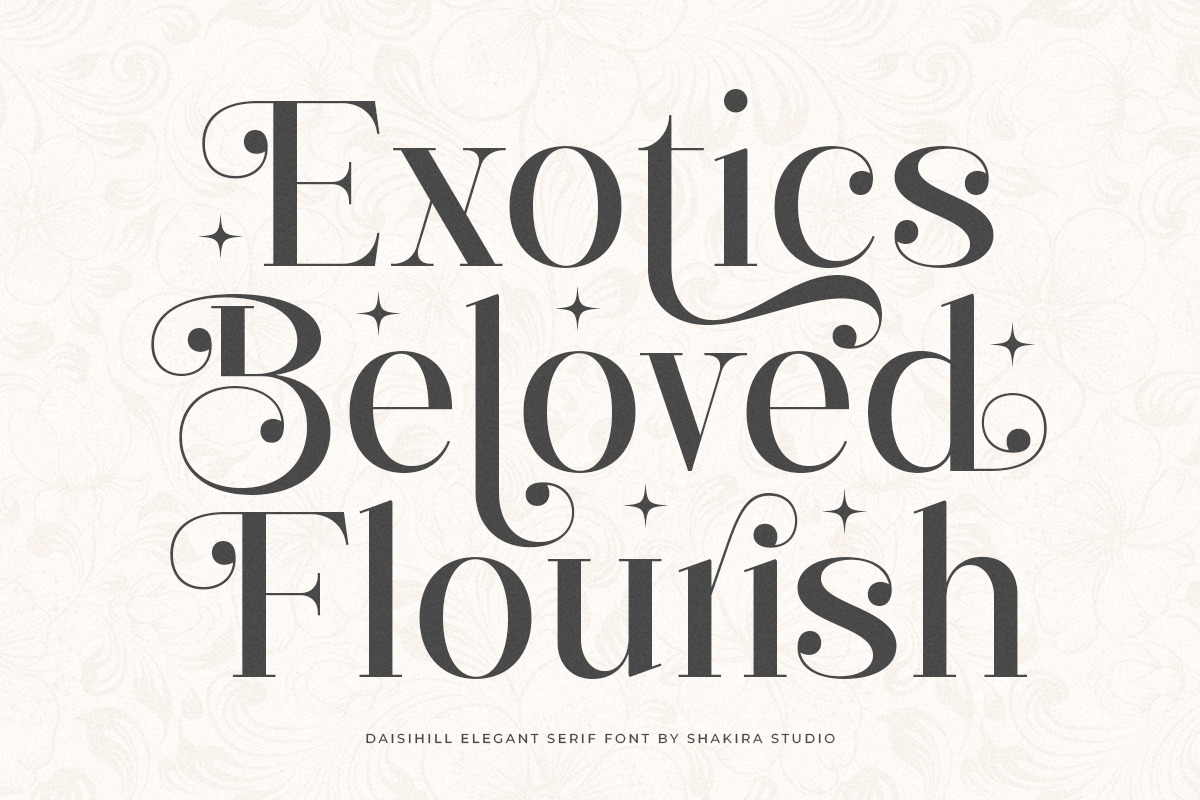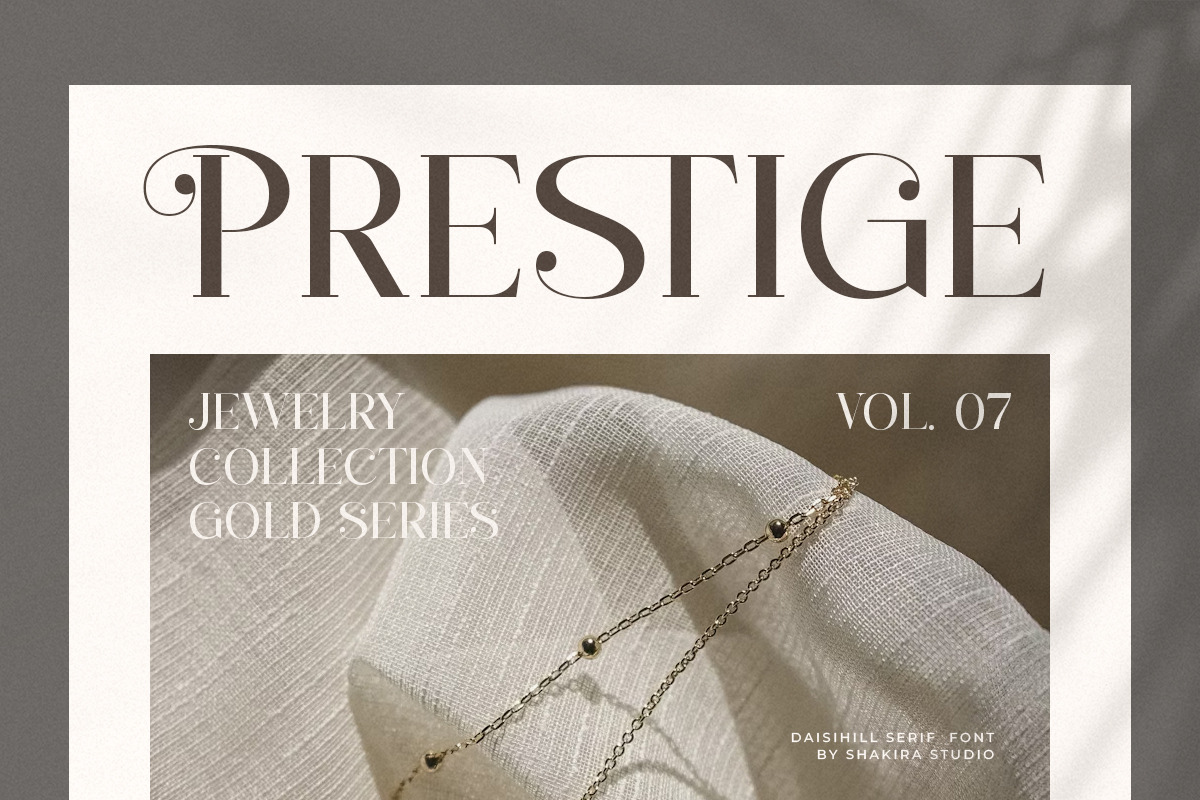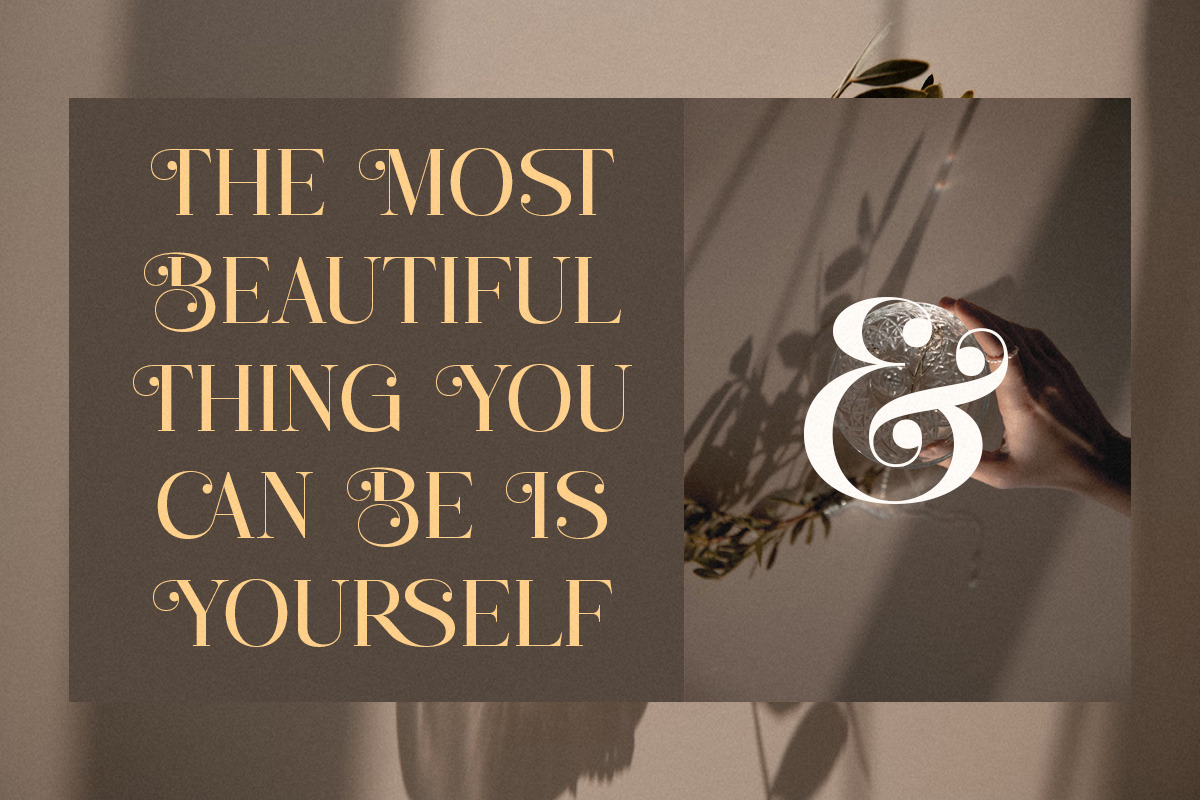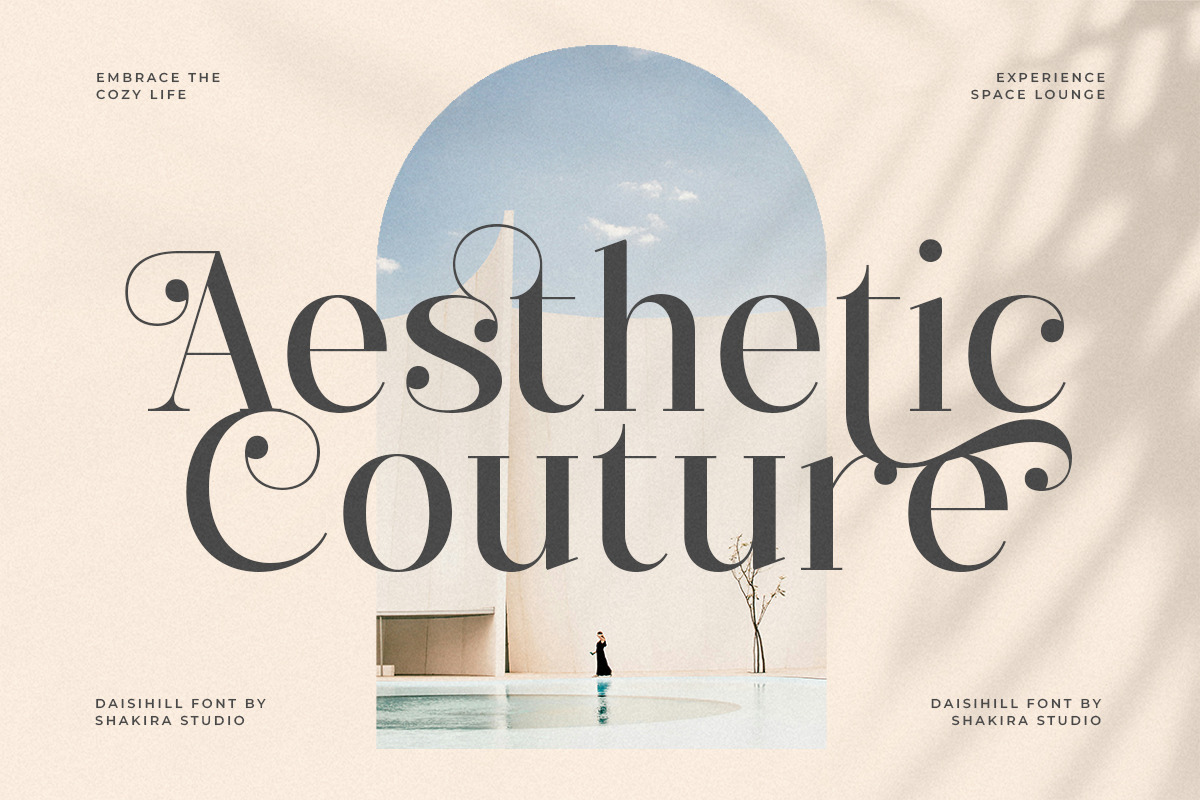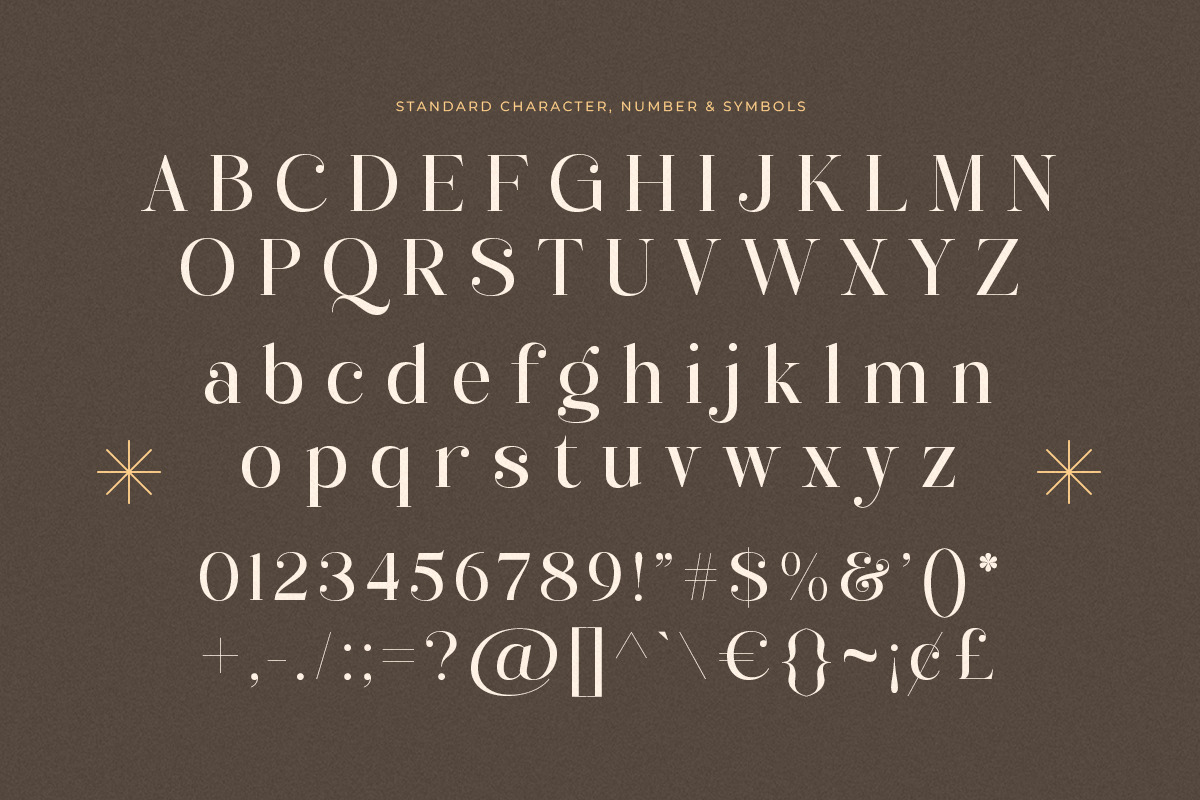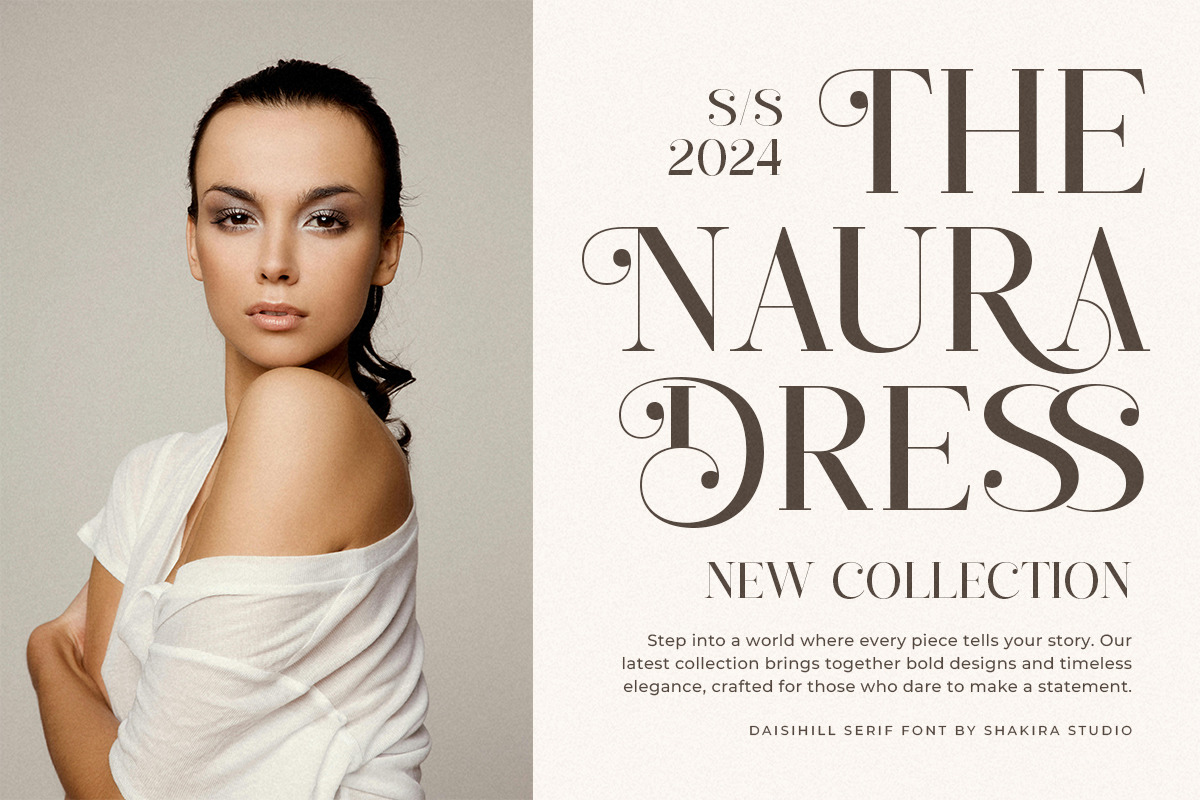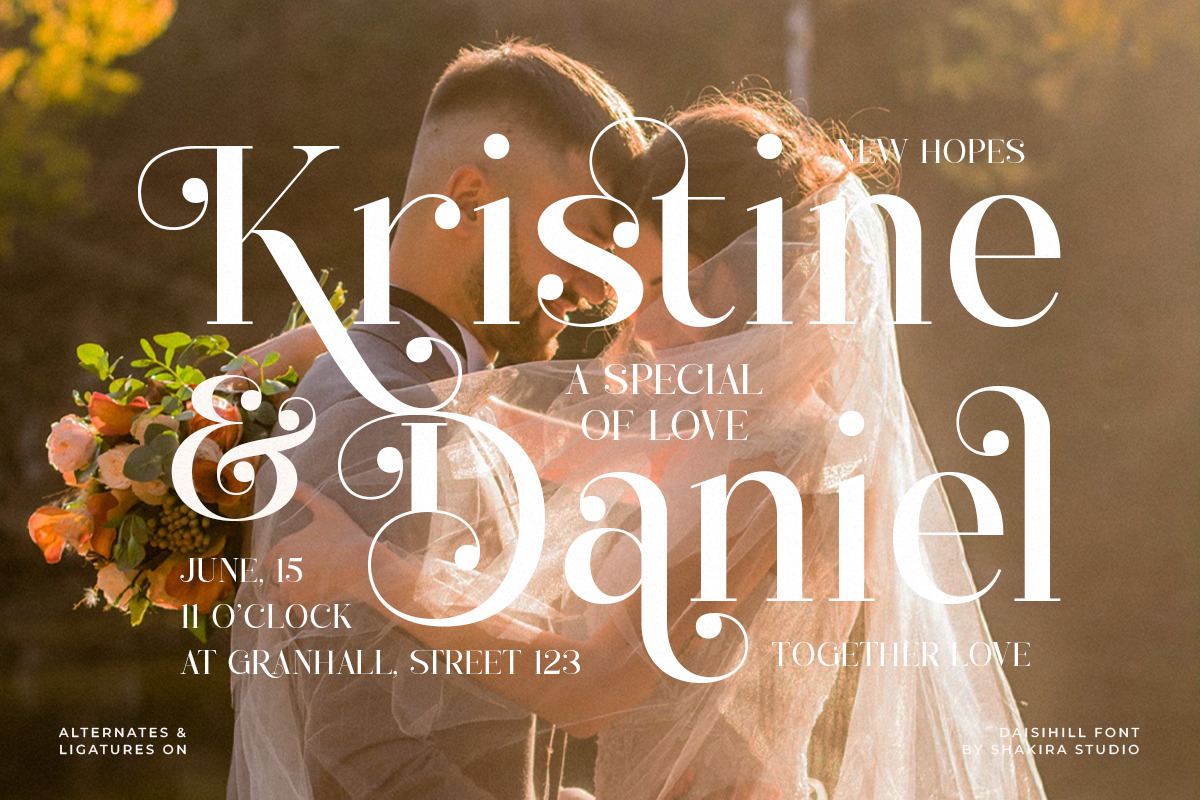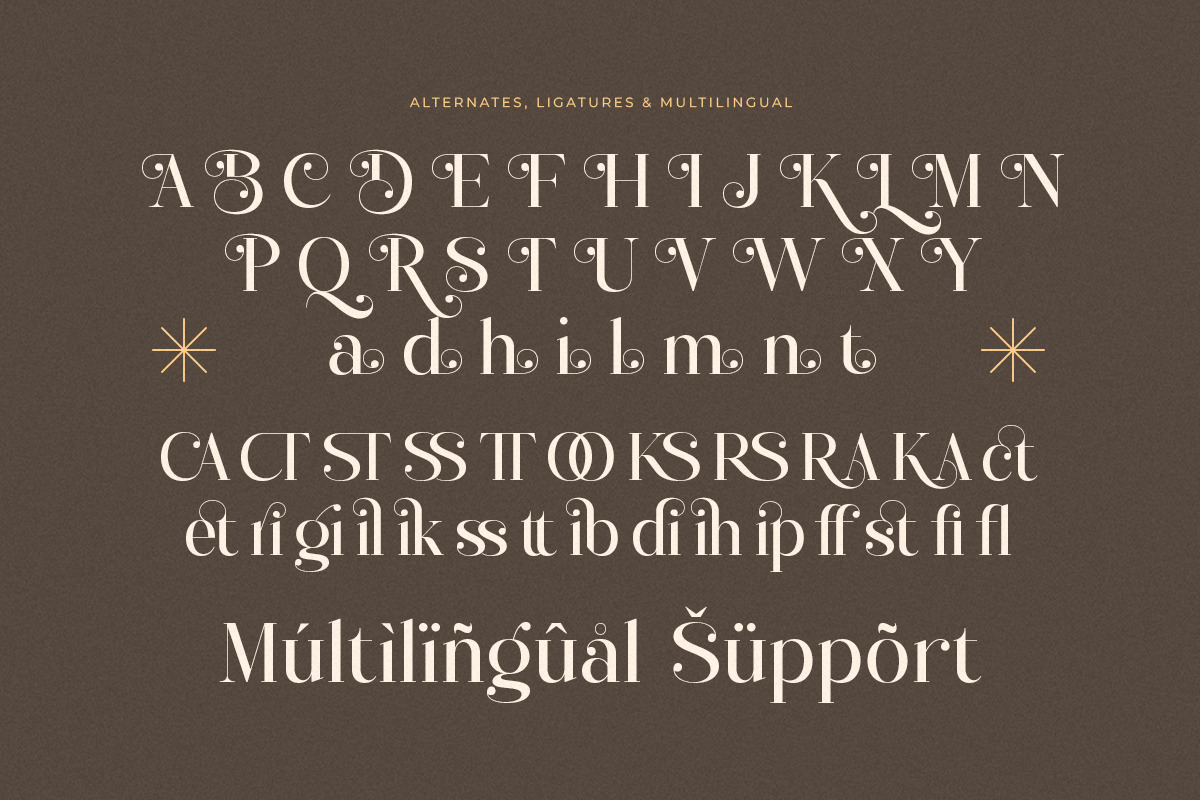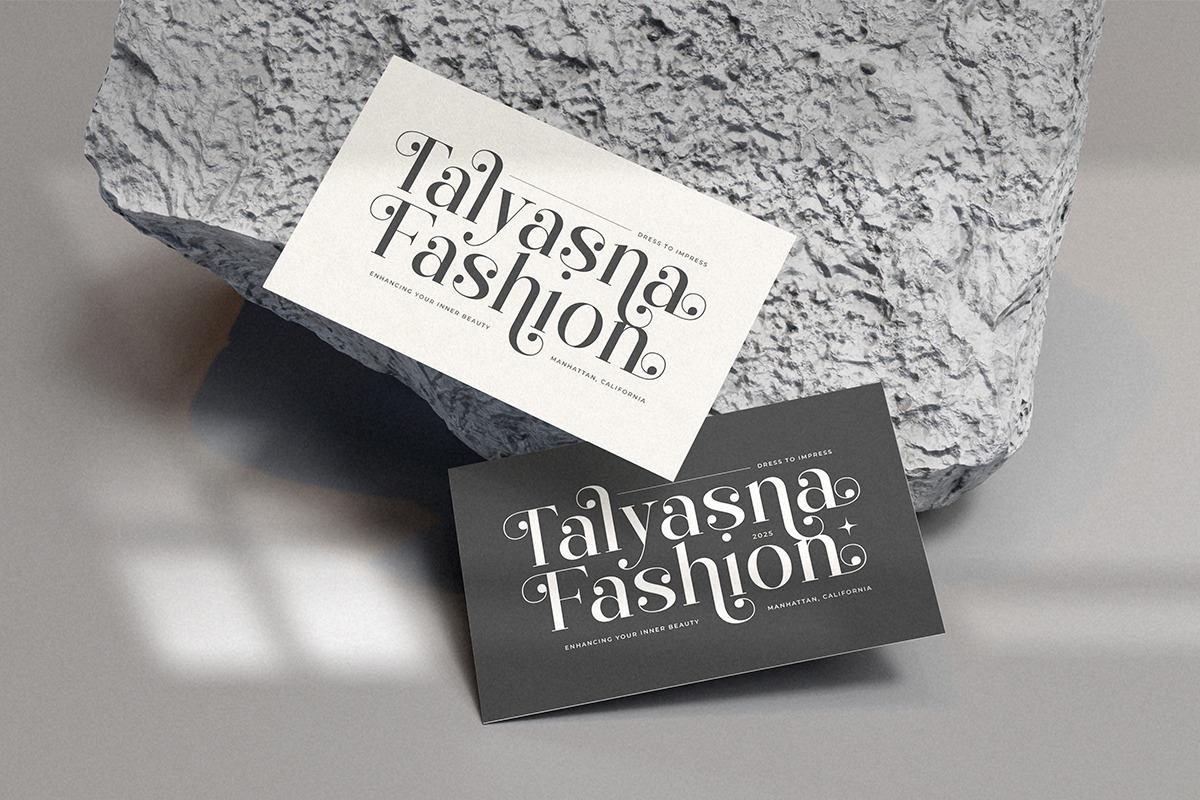
Daisihill - Elegant Luxury Serif
Daisihill is an elegant serif font available in both regular and italic styles, designed to add a touch of luxury and refinement to any project. With its thin, stylish character, Daisihill combines classic elegance with modern design through its stylish alternates and ligatures. Perfect for luxury branding, editorial layouts, wedding invitations, and more, this versatile font enhances any creation with its sophisticated and timeless appeal.
- Regular & Italic
- Opentype features ( ligature, alternate )
Multilingual character supports : (Afrikaans, Albanian, Catalan, Croatian, Czech, Danish, Dutch, English, Estonian, Finnish, French, German, Hungarian, Icelandic, Italian, Lithuanian, Maltese, Norwegian, Polish, Portuguese, Slovenian, Spanish, Swedish, Turkish, Zulu)